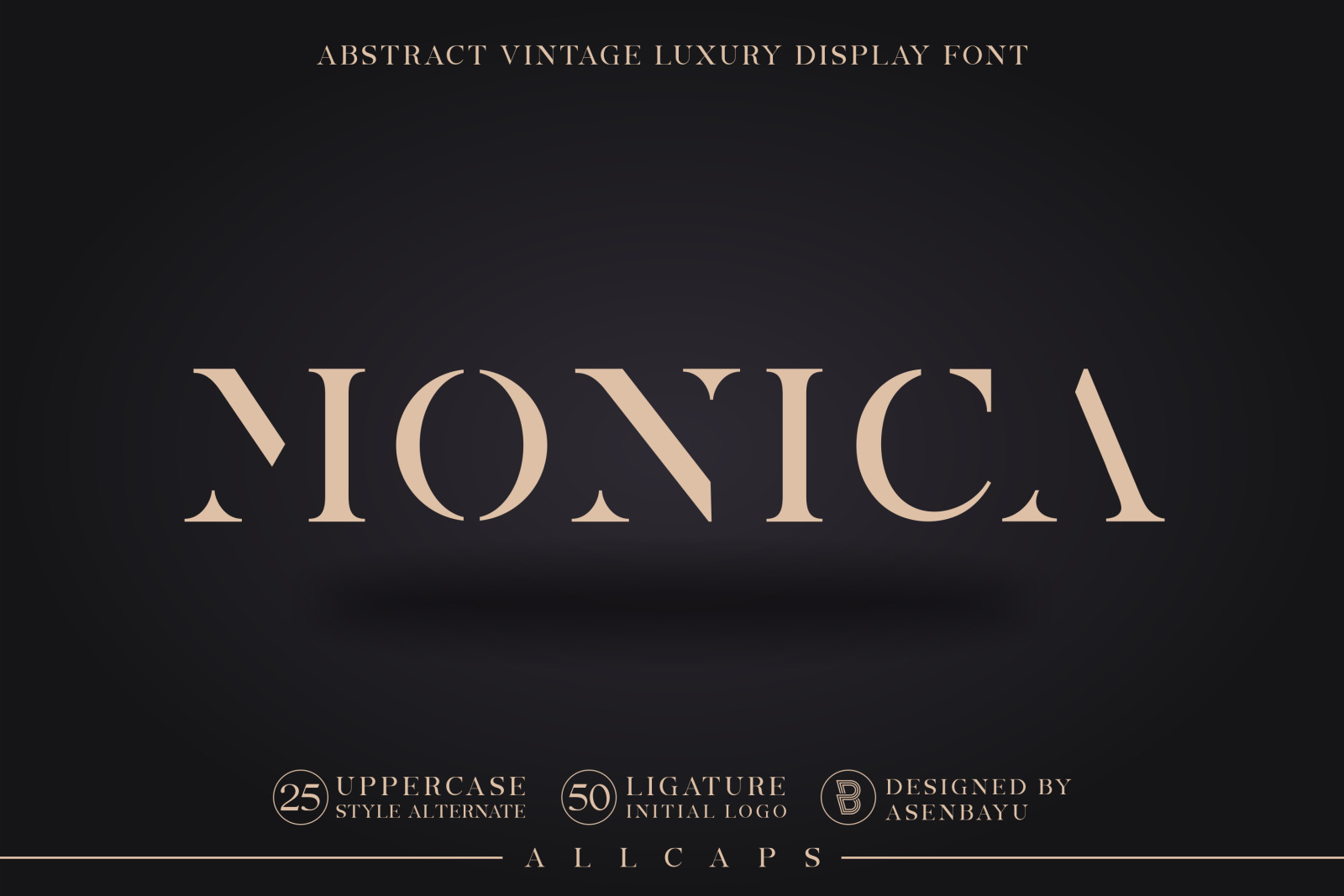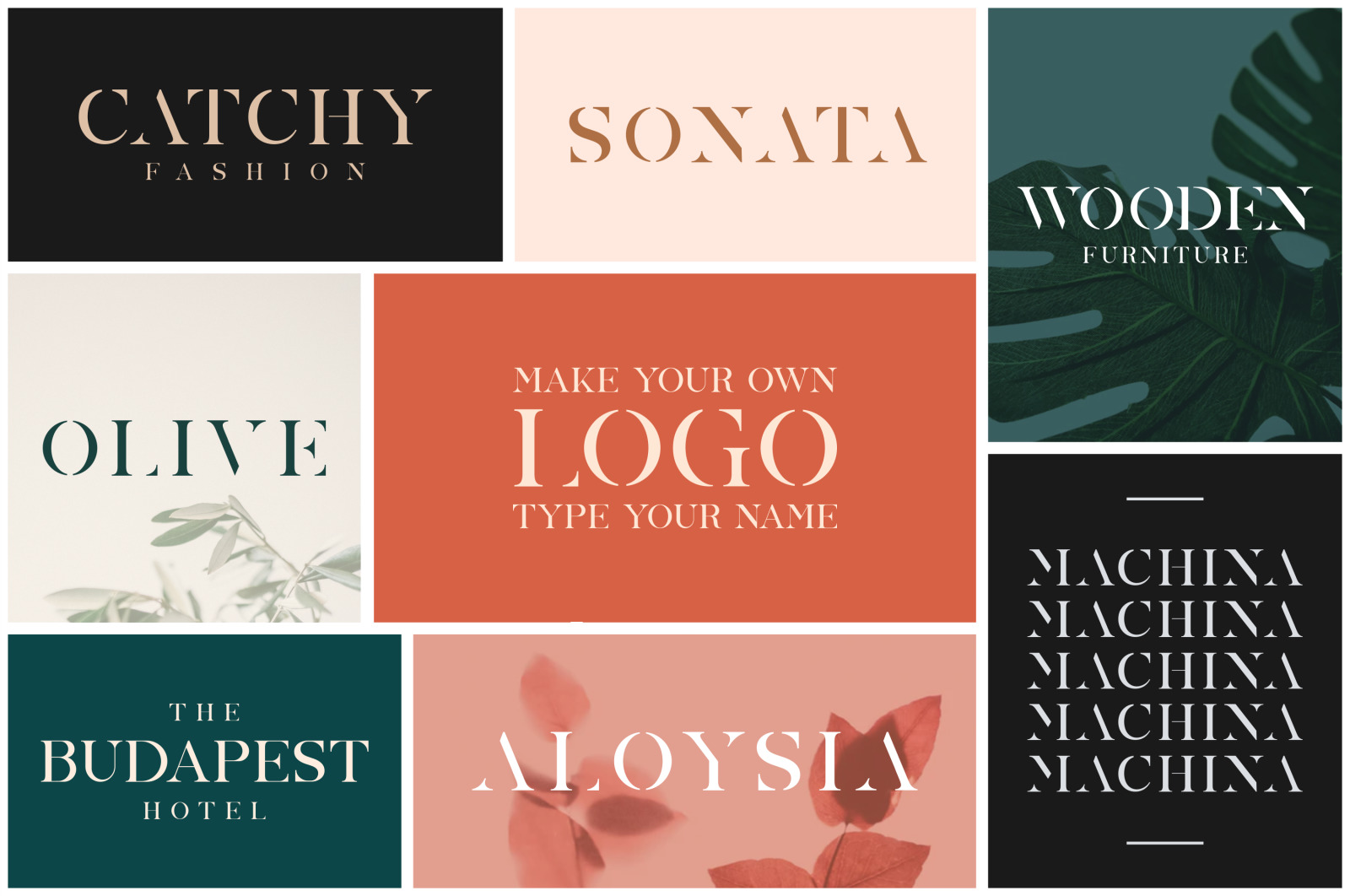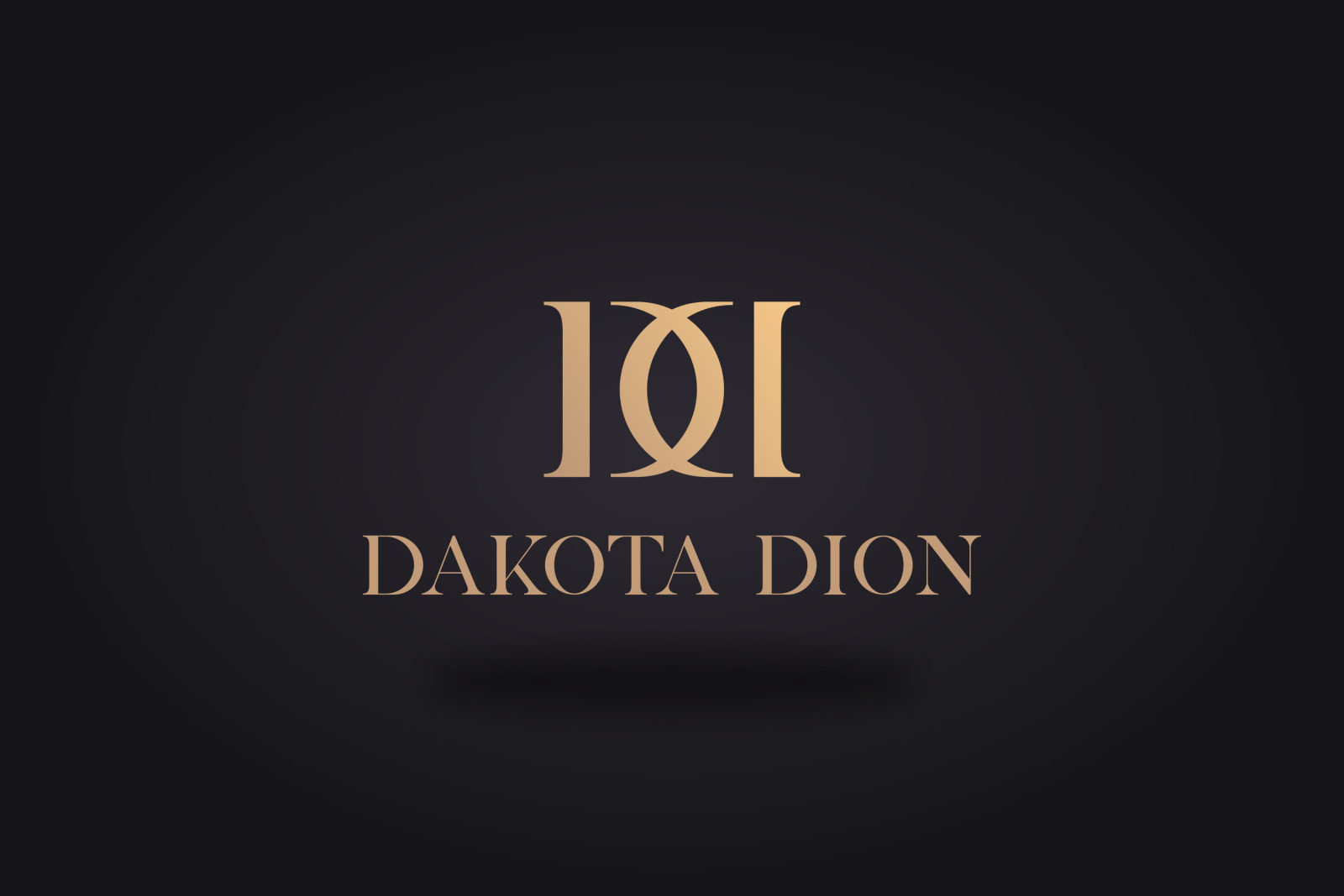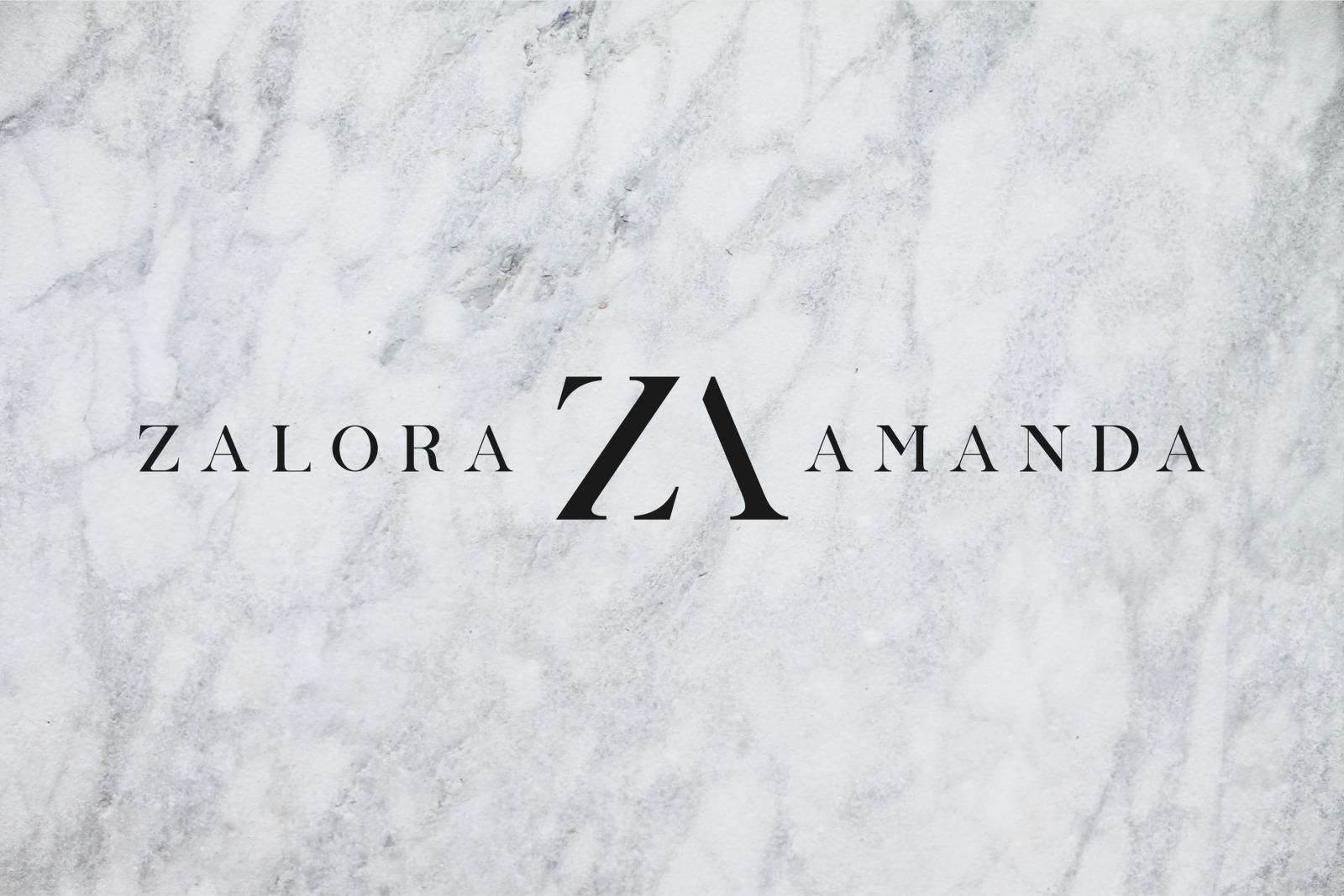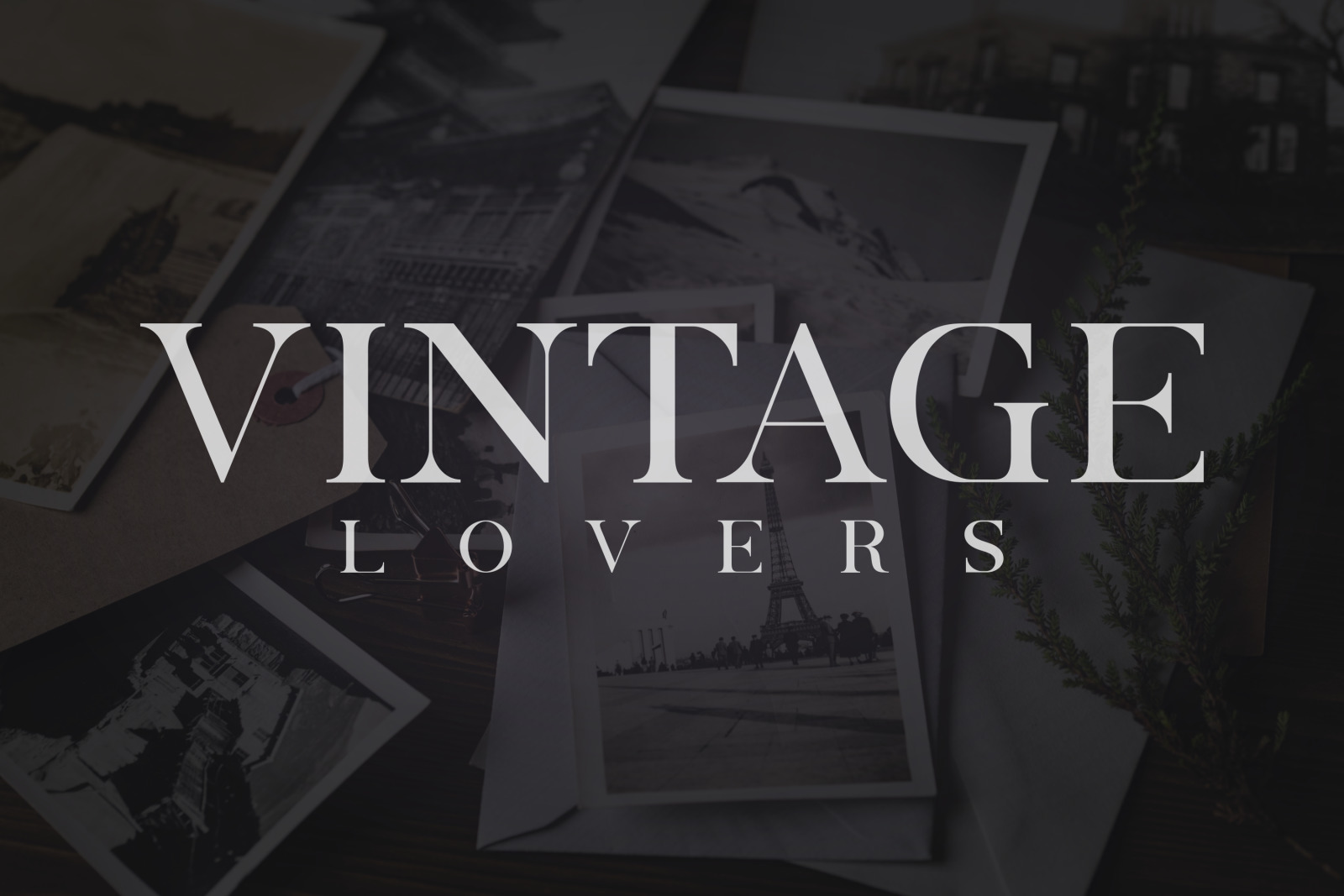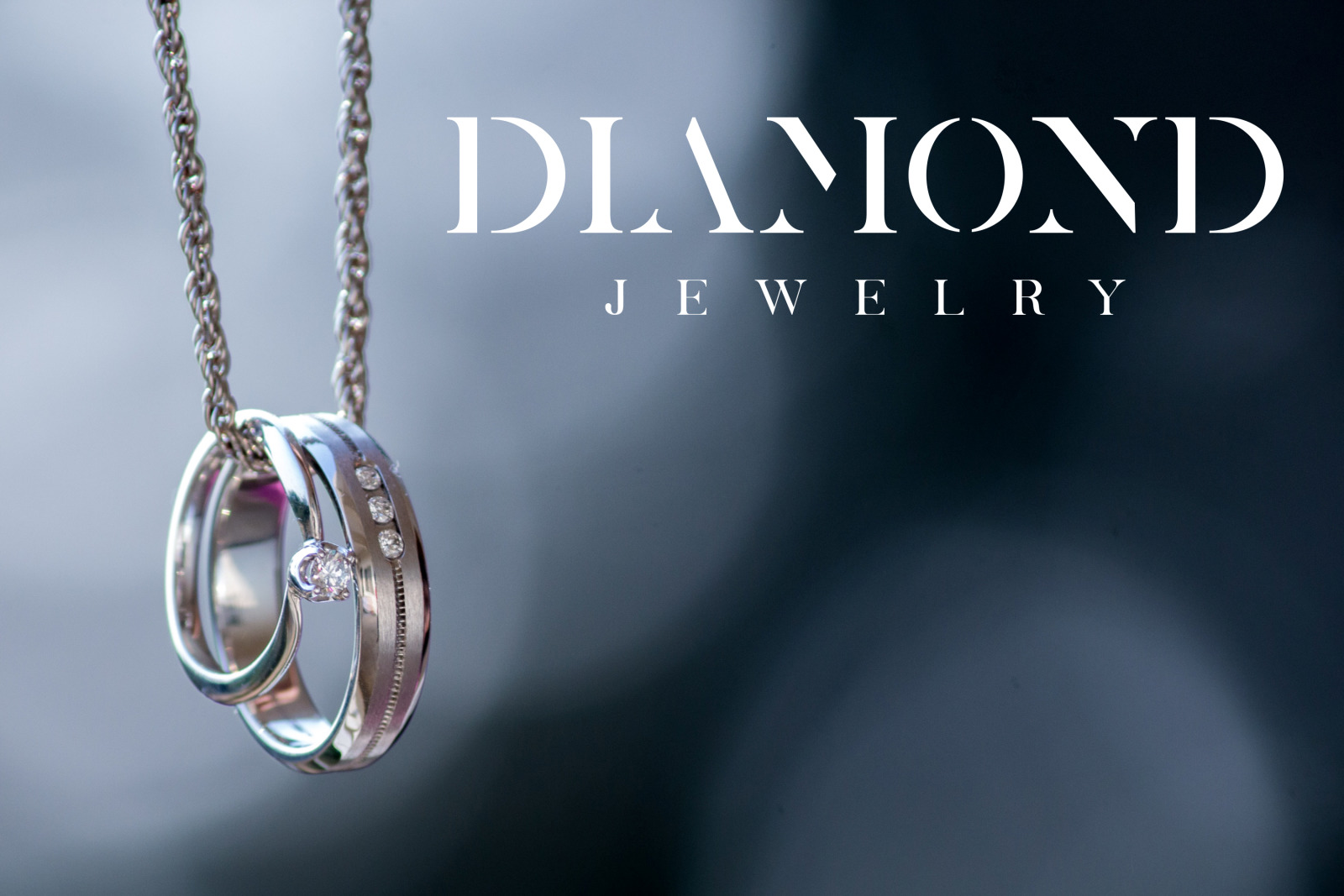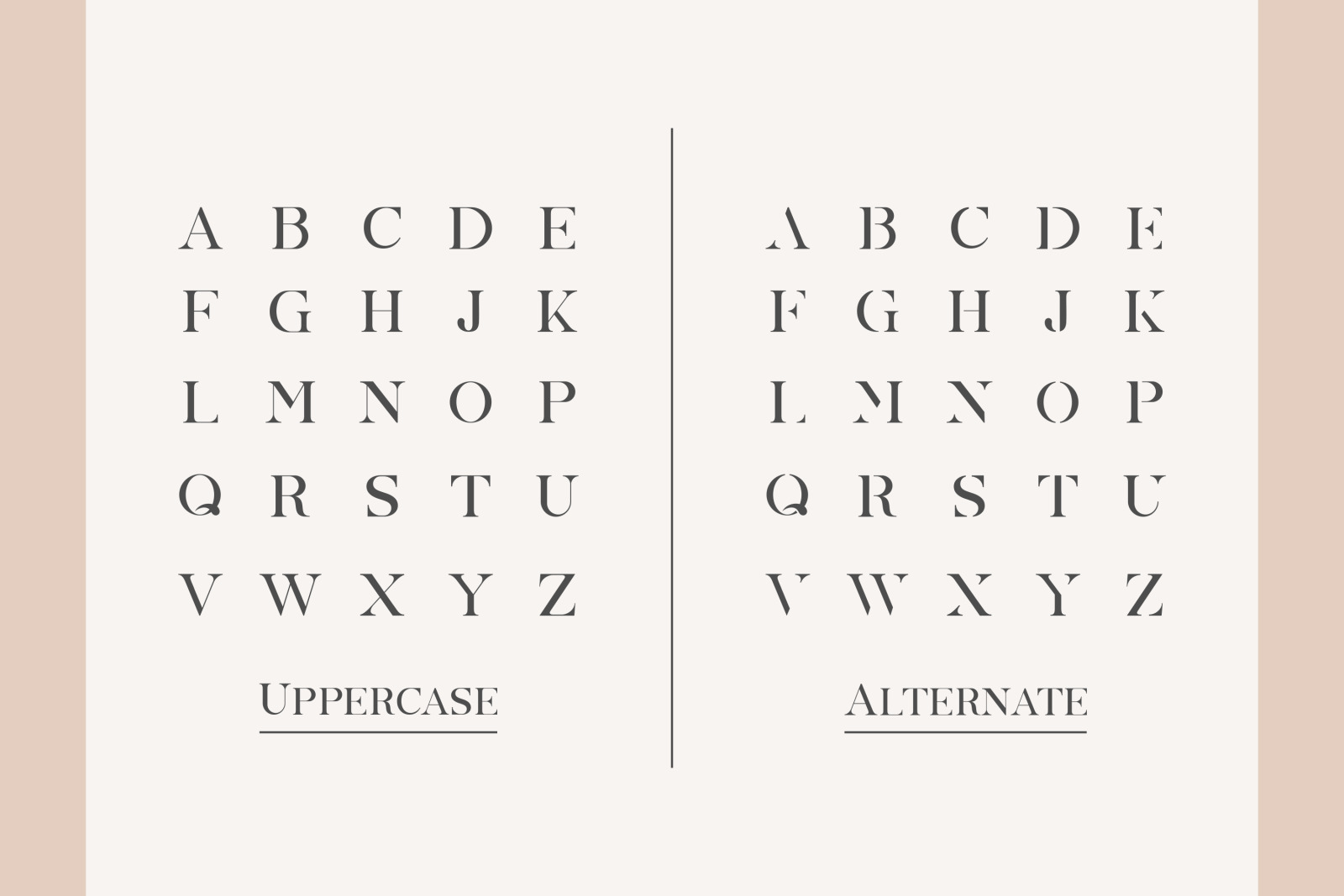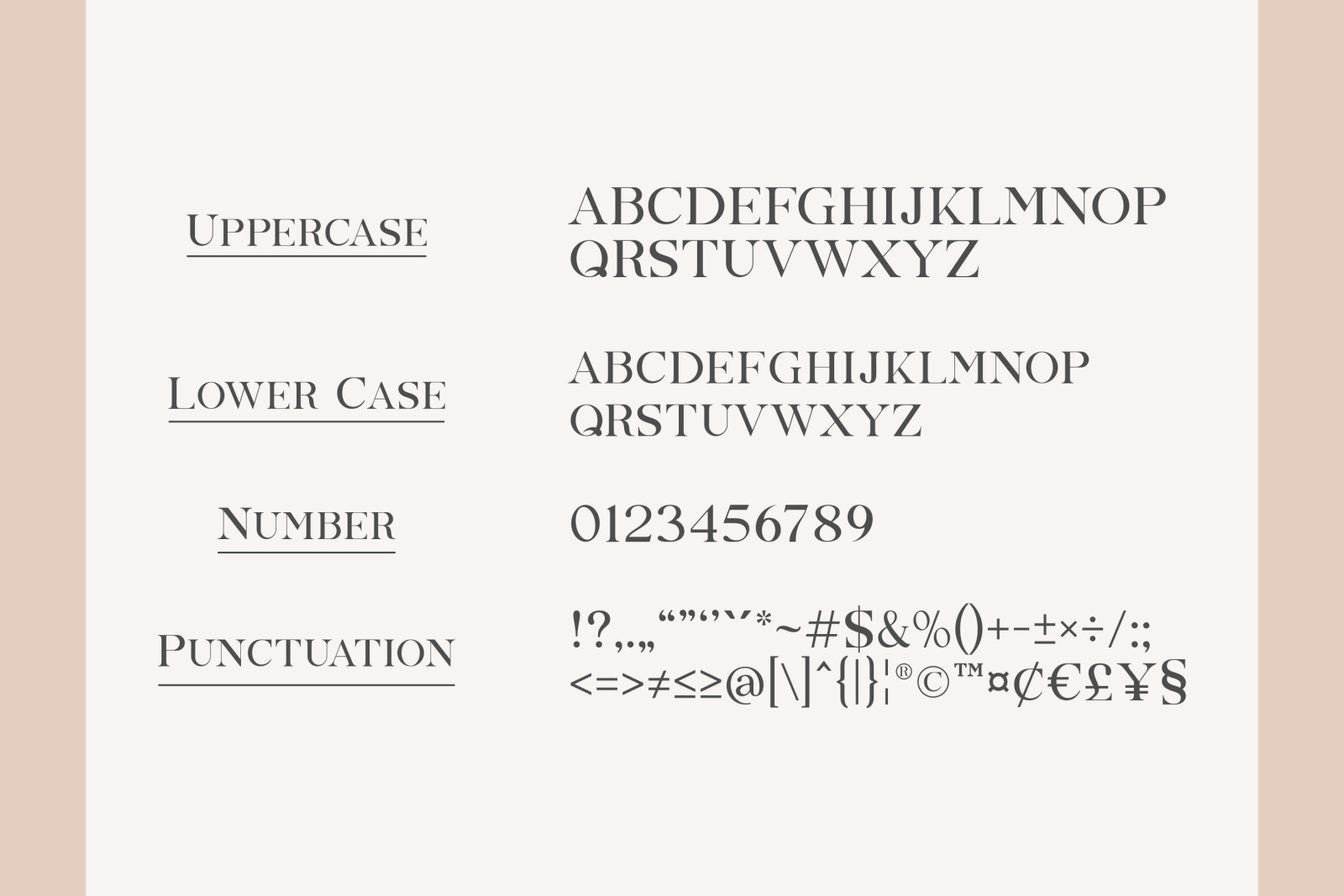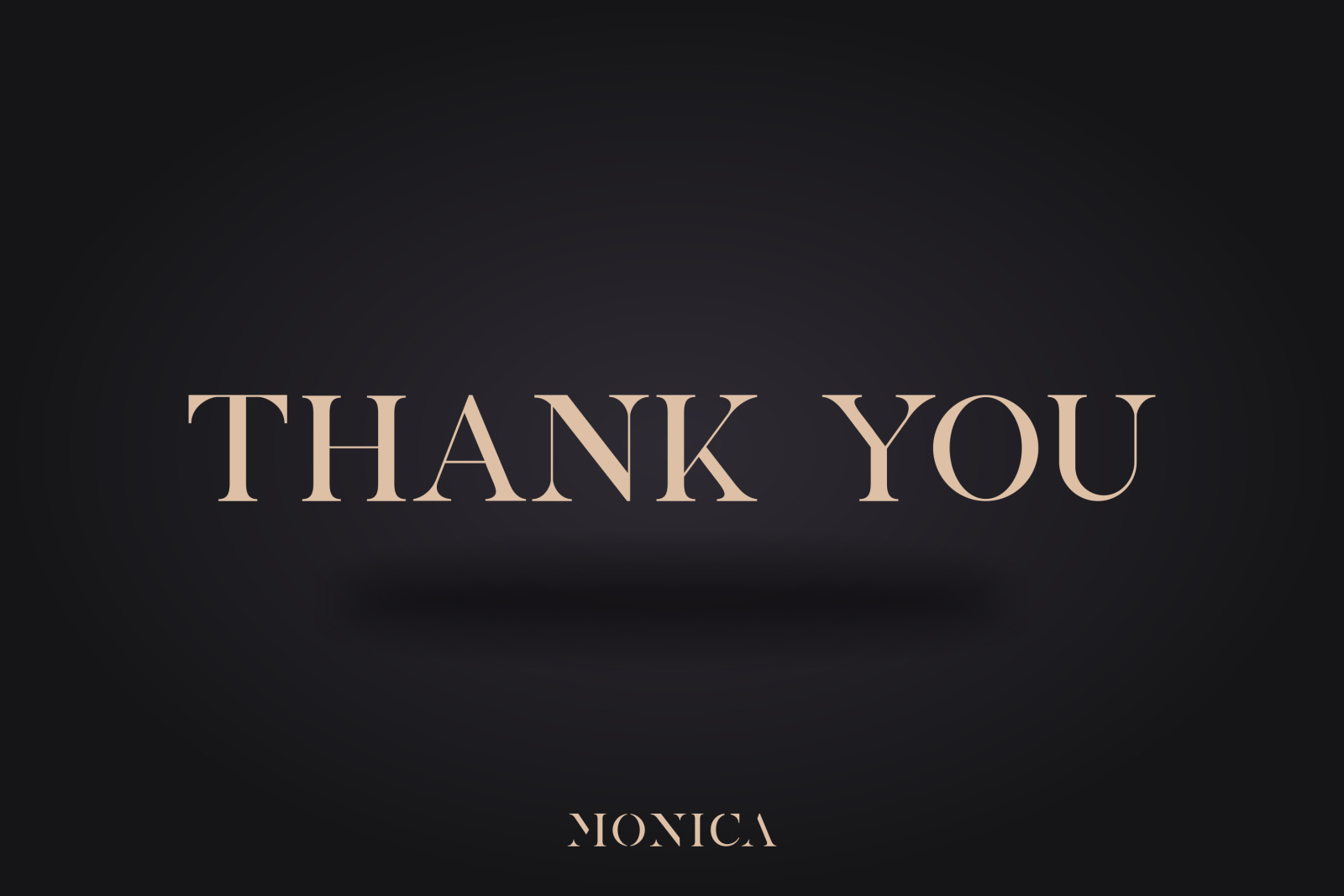
MONICA ALLCAPS - Abstract Vintage Display Font
Hi, this is my new font. Monica is an abstract vintage luxury display font. This font is an "All Caps" typeface. This font has 25 alternative styles and 50 ligatures. Install the MONICA ALLCAPS.otf format in order to use this feature. You can create your own logo or headline appearance using the available features.